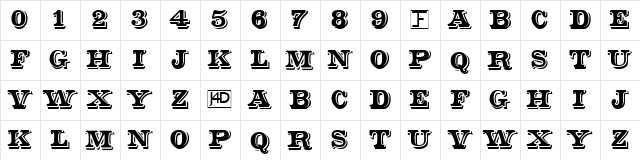
Shadowed Serif Normal
Design Context for Shadowed Serif Typeface
Shadowed Serif brings ornamental detail and strong personality to headlines and identities, where visual impact matters more than quiet functionality.
Font Pairing: Pair with a clean neutral sans-serif for body copy to let Shadowed Serif's character lead without overwhelming the composition.
Pro Tip: Use Shadowed Serif exclusively at display sizes — it was designed to be seen, not read at length. Let a neutral companion handle body copy.